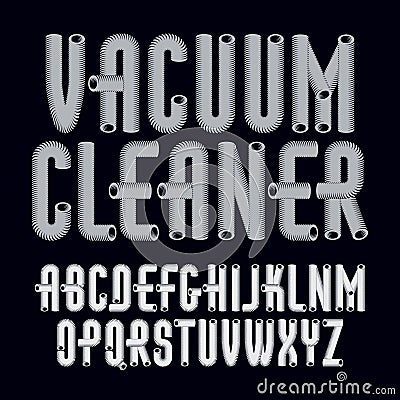
Vector Trendy Capital English Alphabet Letters Collection. Retro Type Font, Script From A To Z Best For Use In Logotype Creation.
Vector trendy capital English alphabet letters collection. Retro type font, script from a to z best for use in logotype creation. Vector Illustration
Vector trendy capital English alphabet letters collection. Retro type font, script from a to z best for use in logotype creation. #162974986
Vector trendy capital English alphabet letters collection. Retro type font, script from a to z best for use in logotype creation. Made with industrial hose, 3d cylinder tube design